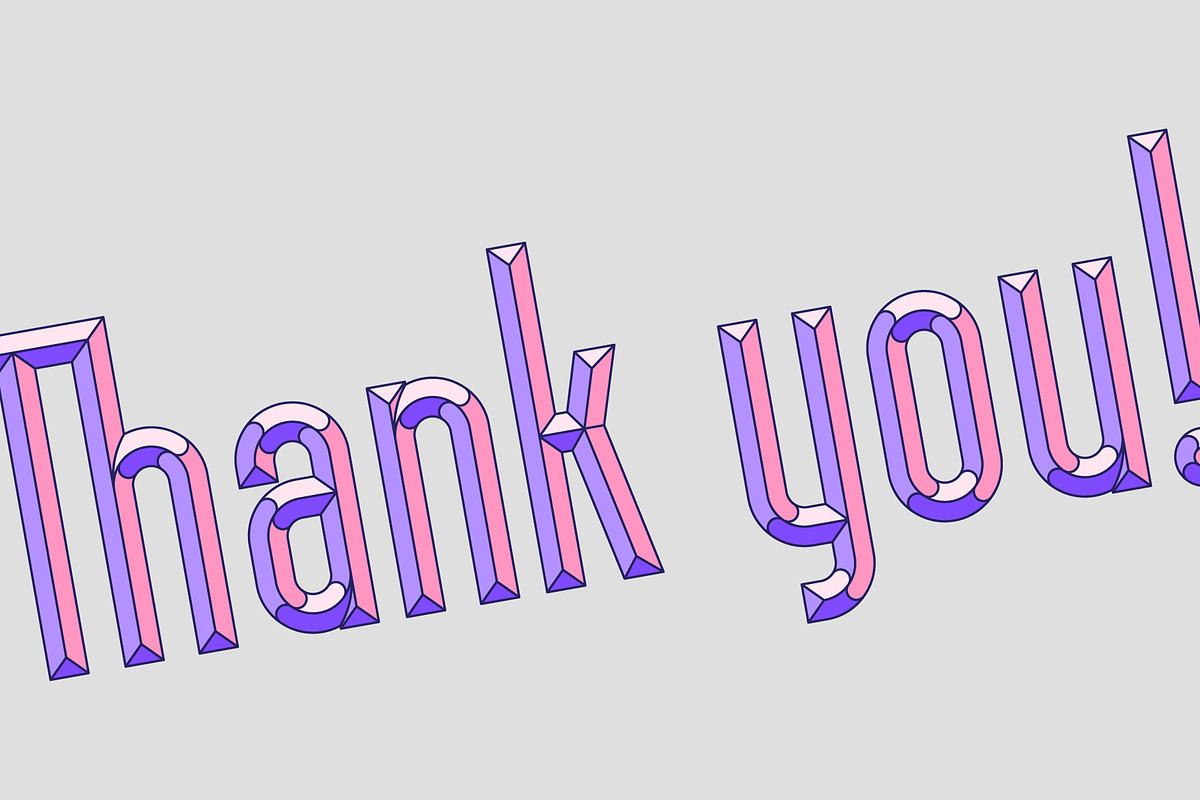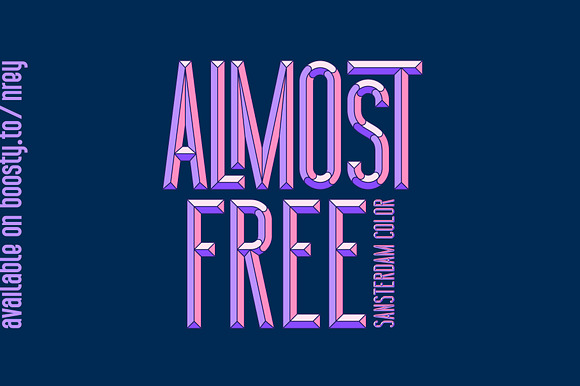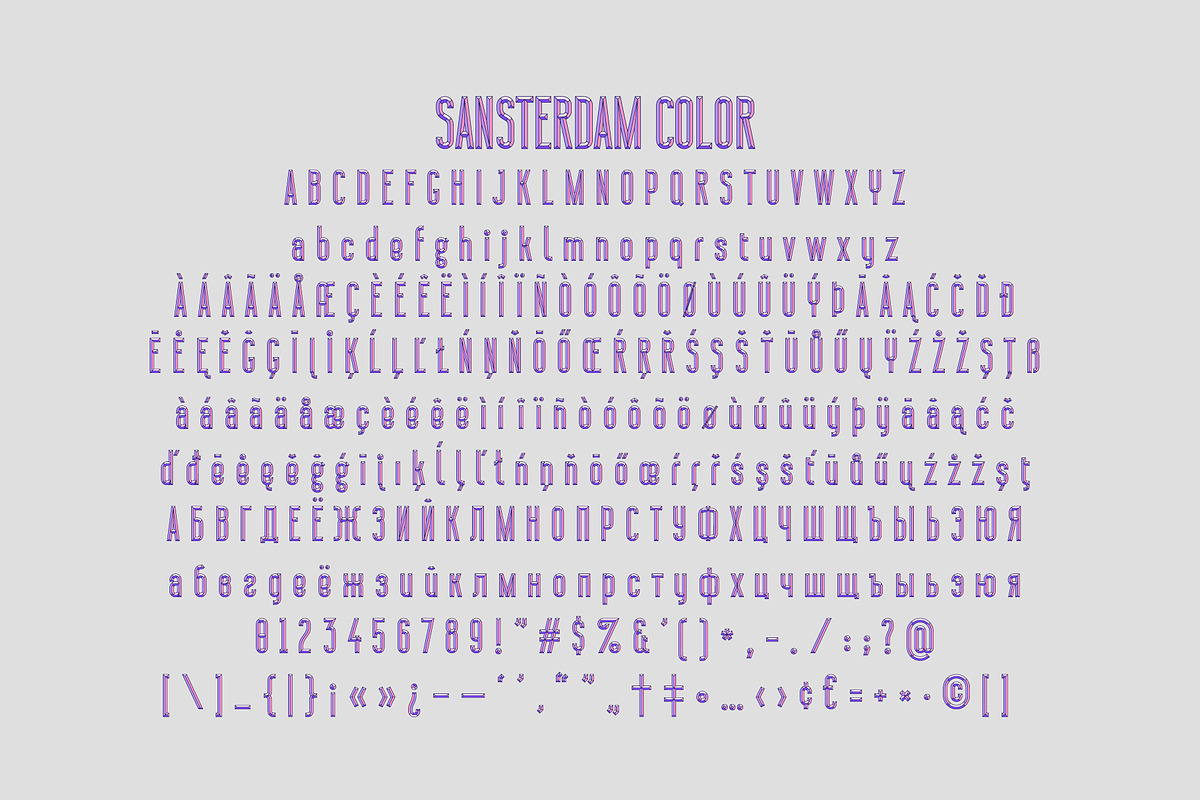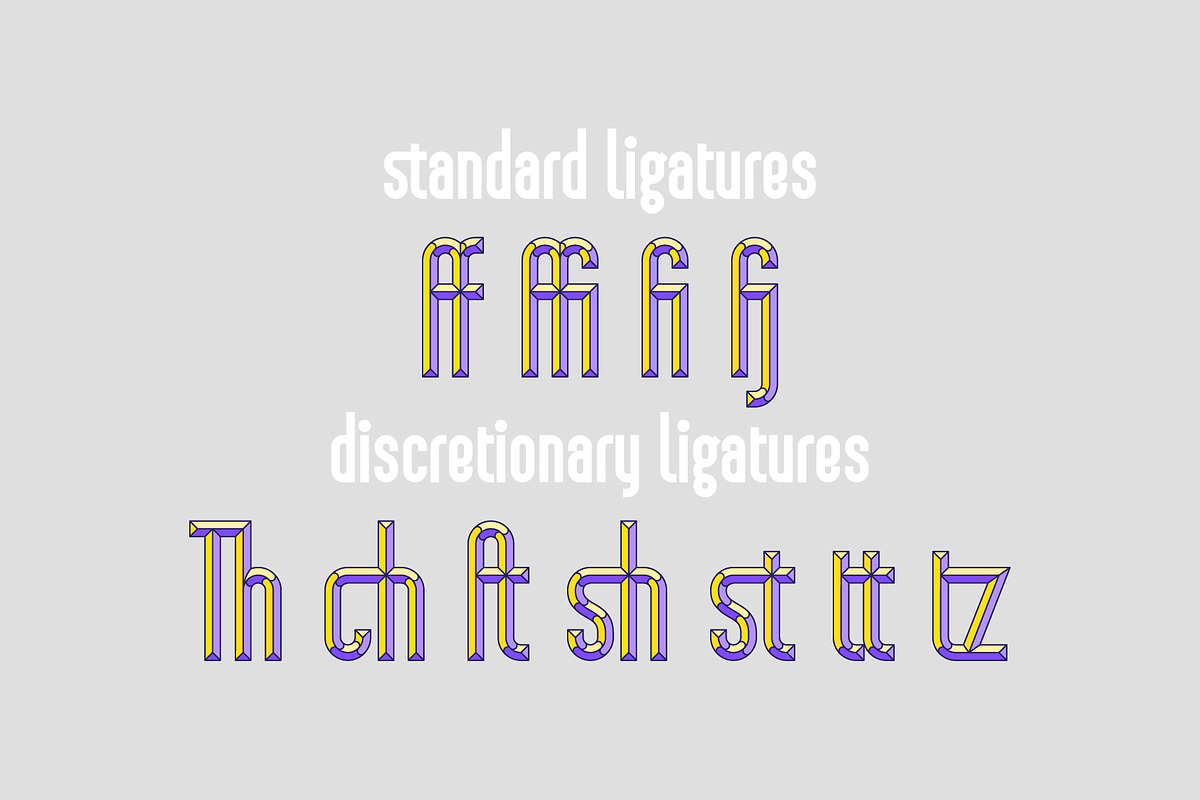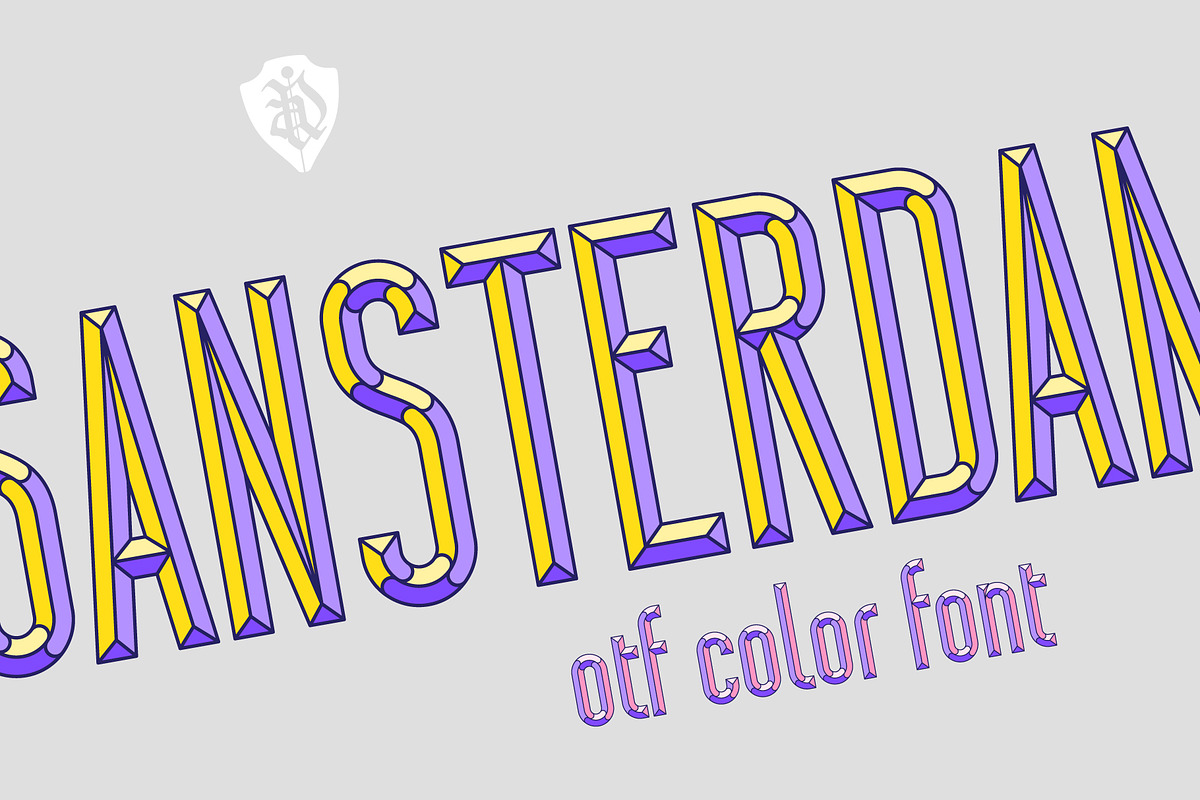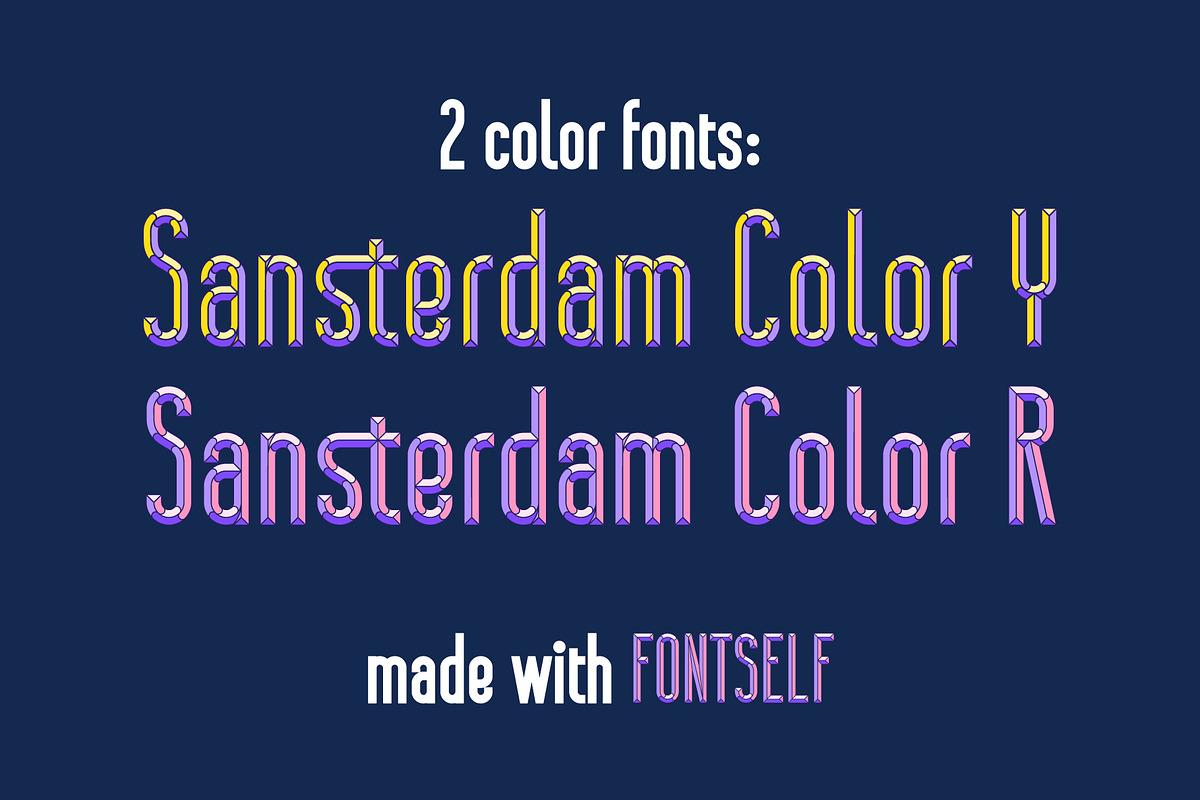
Sansterdam Color Font
Introdusing Sansterdam Color Font is a display font of modern geometric condenced grotesque font family.
Sansterdam Color Y - yellow 3d font
Sansterdam Color R - red 3d font
Sansterdam Color N - additional casual monochrome font
Font looks amazing as alone words and as full text blocks. Also it good for bright captions and logos.
Sansterdam Color Font by NREY fits naturally into Branding, posters, packaging, typography.